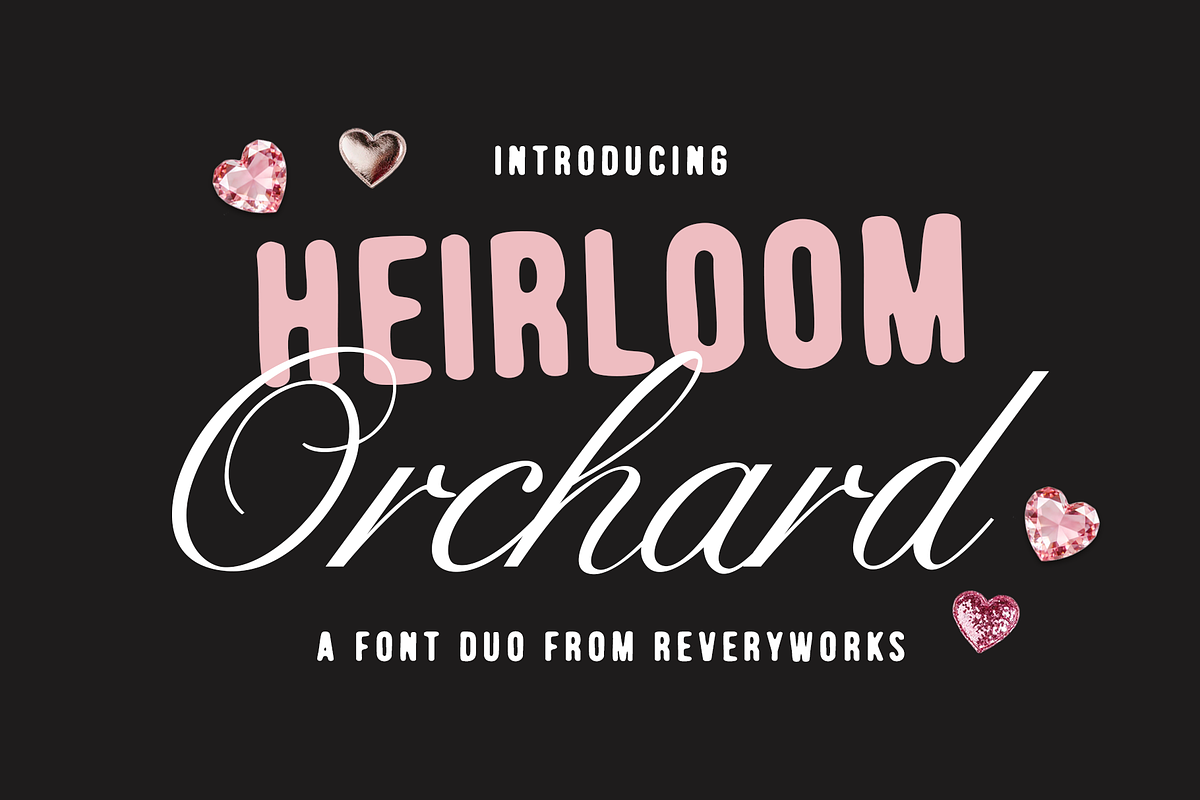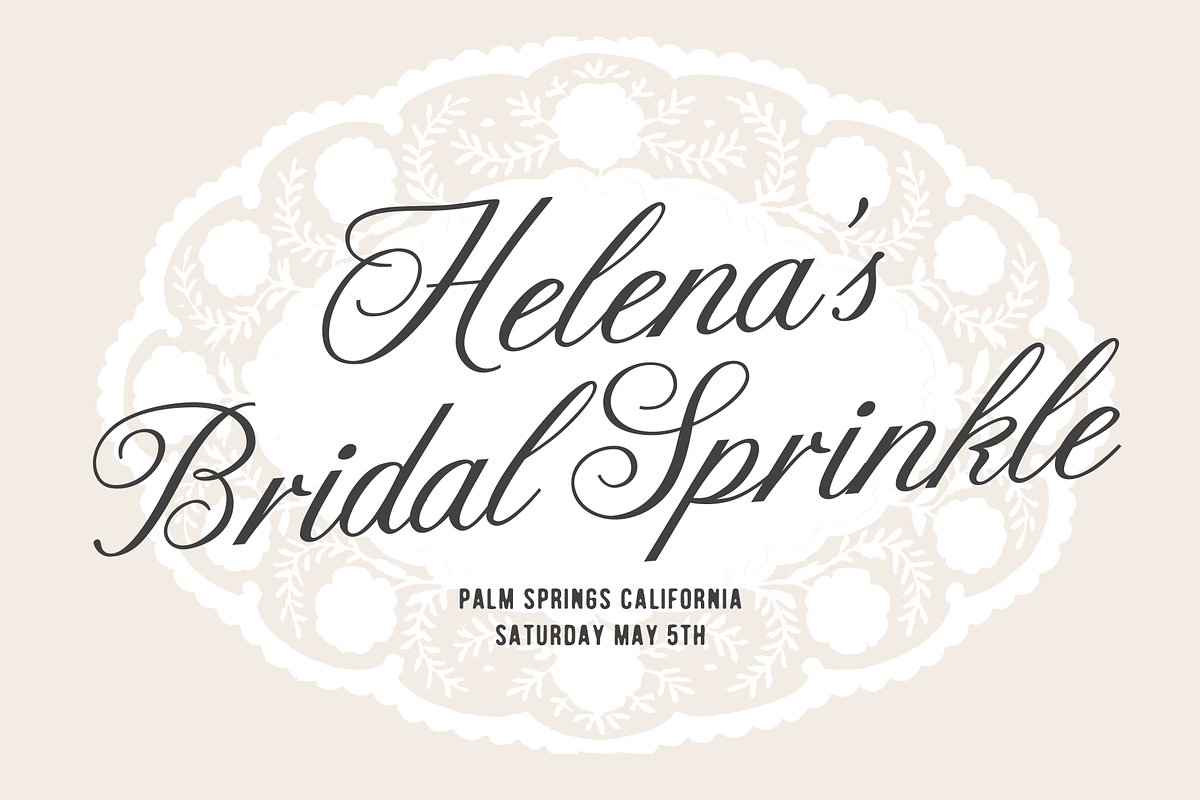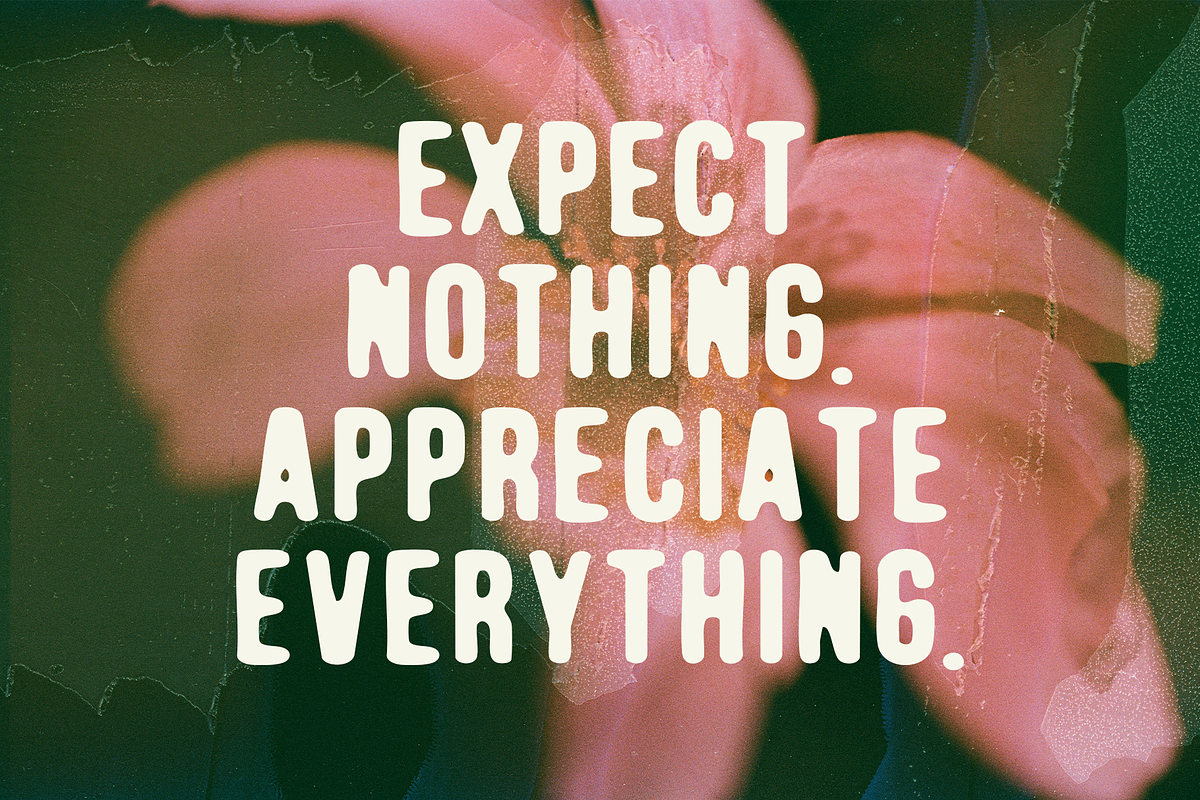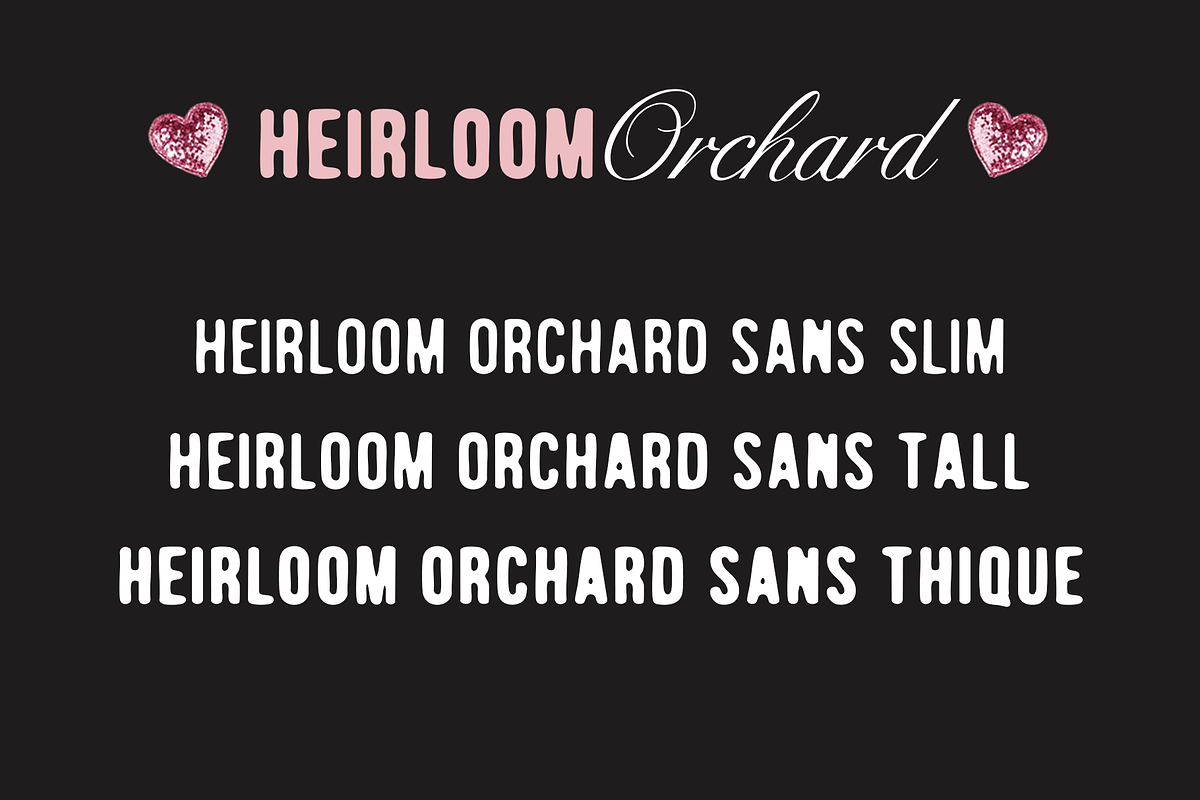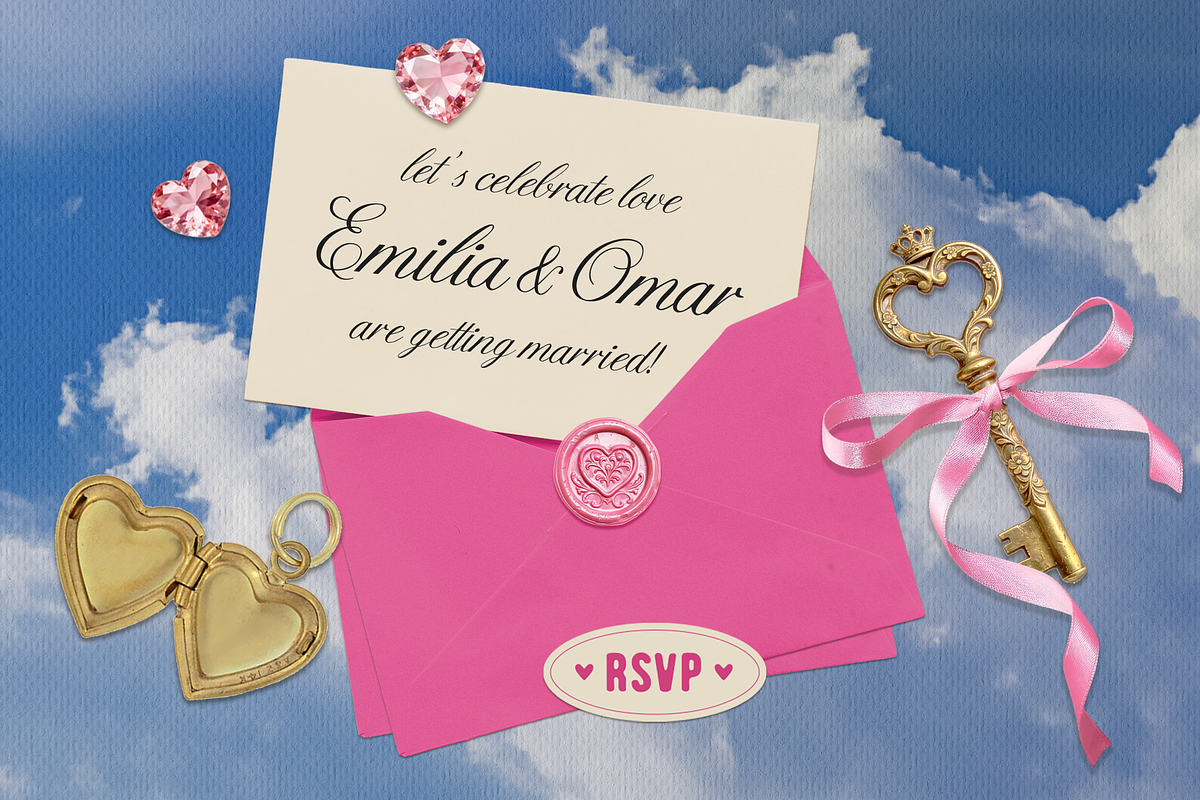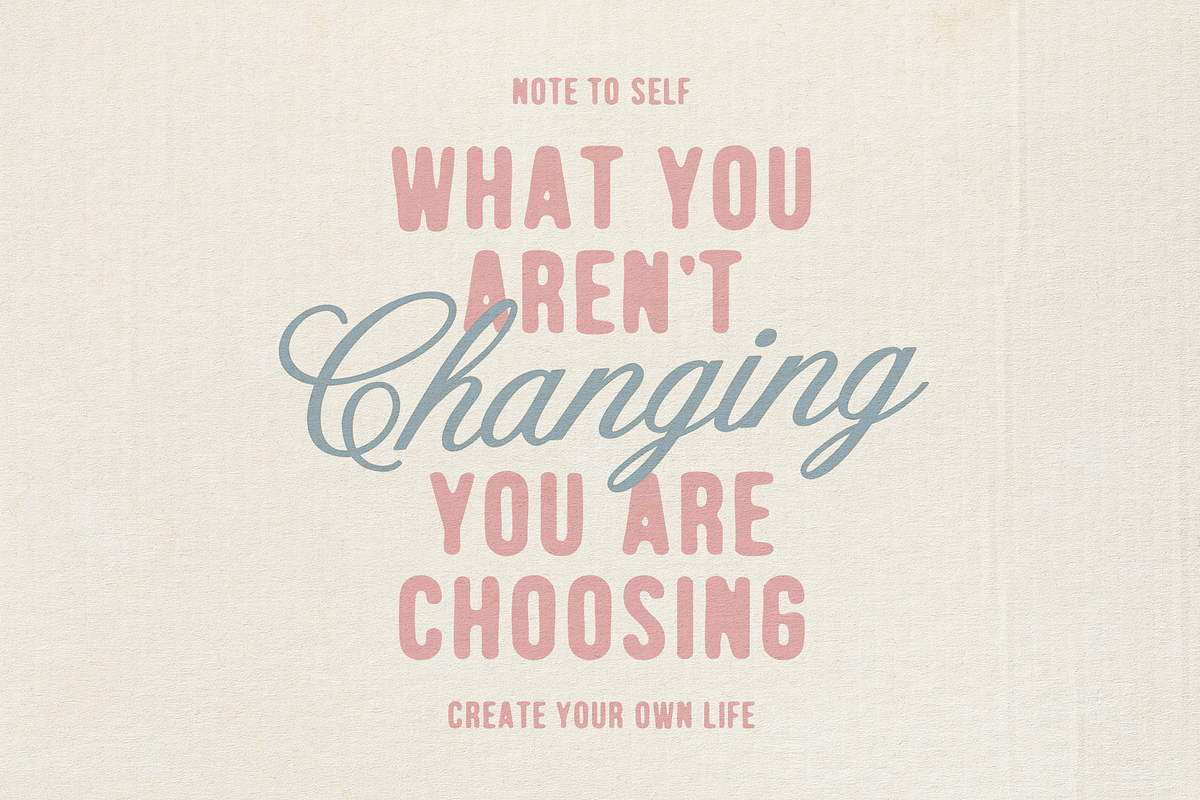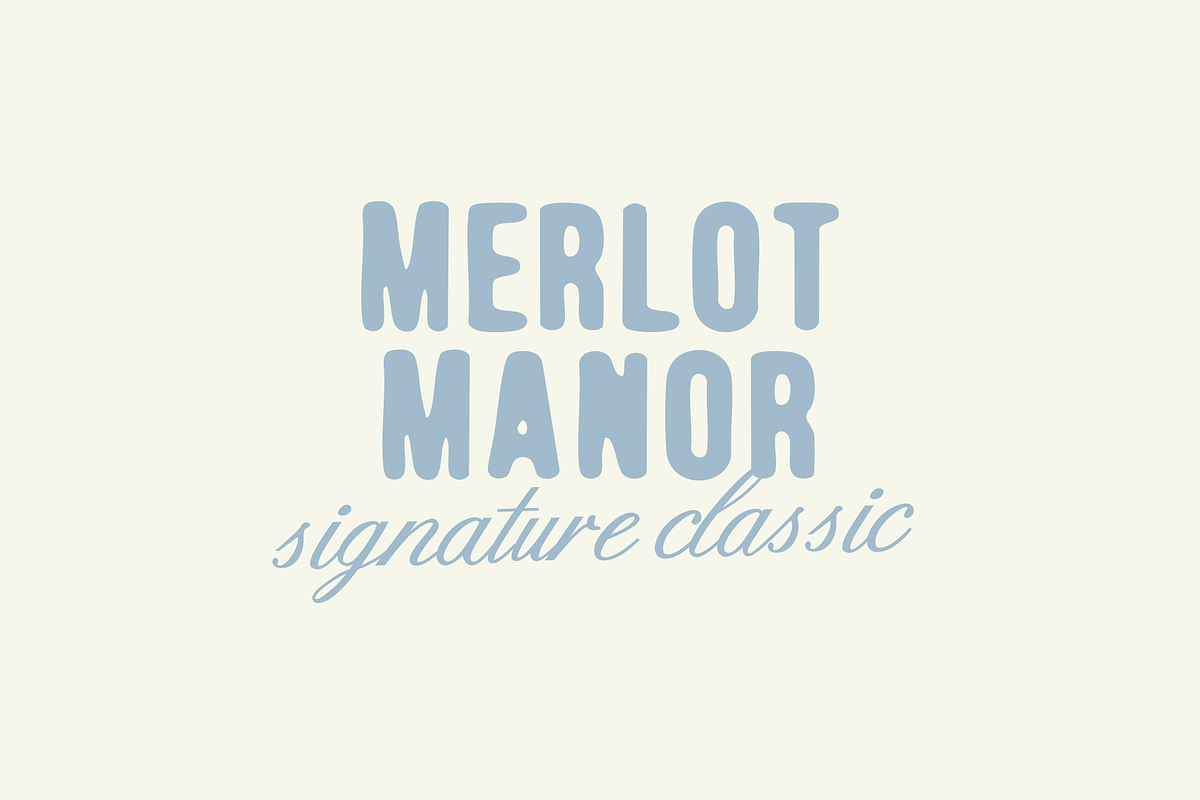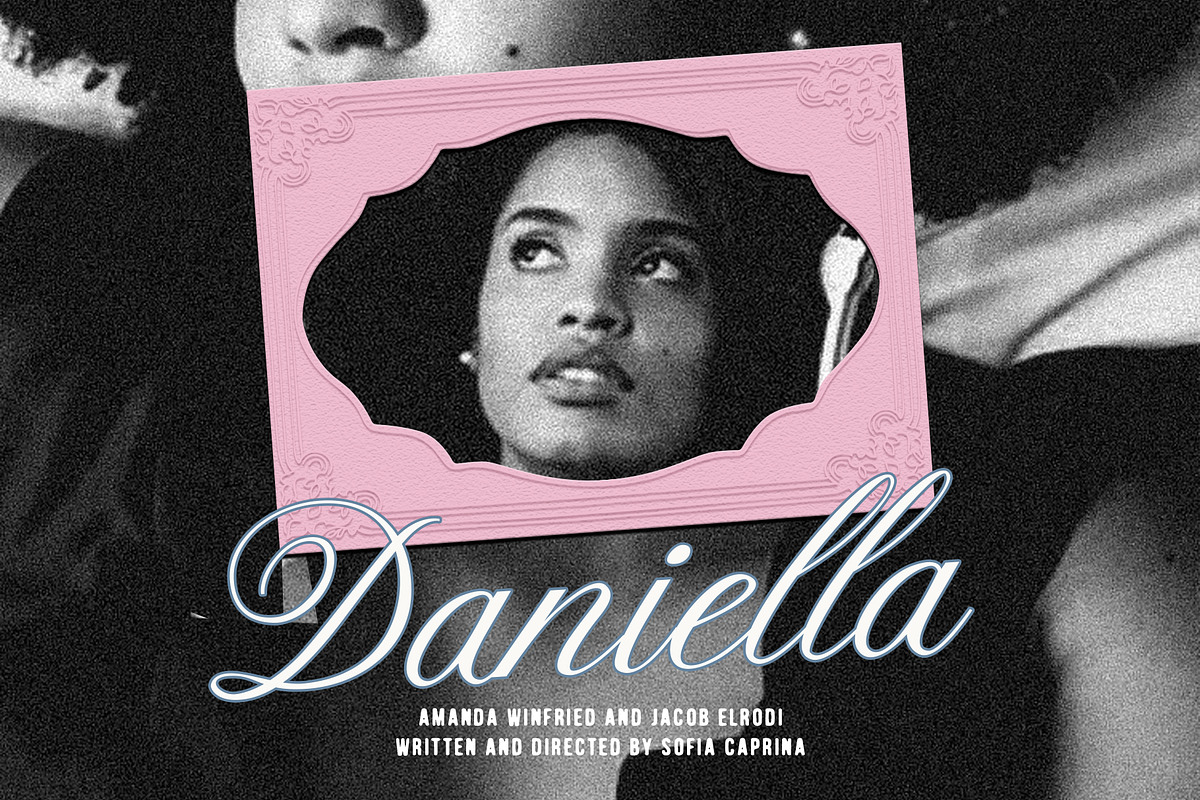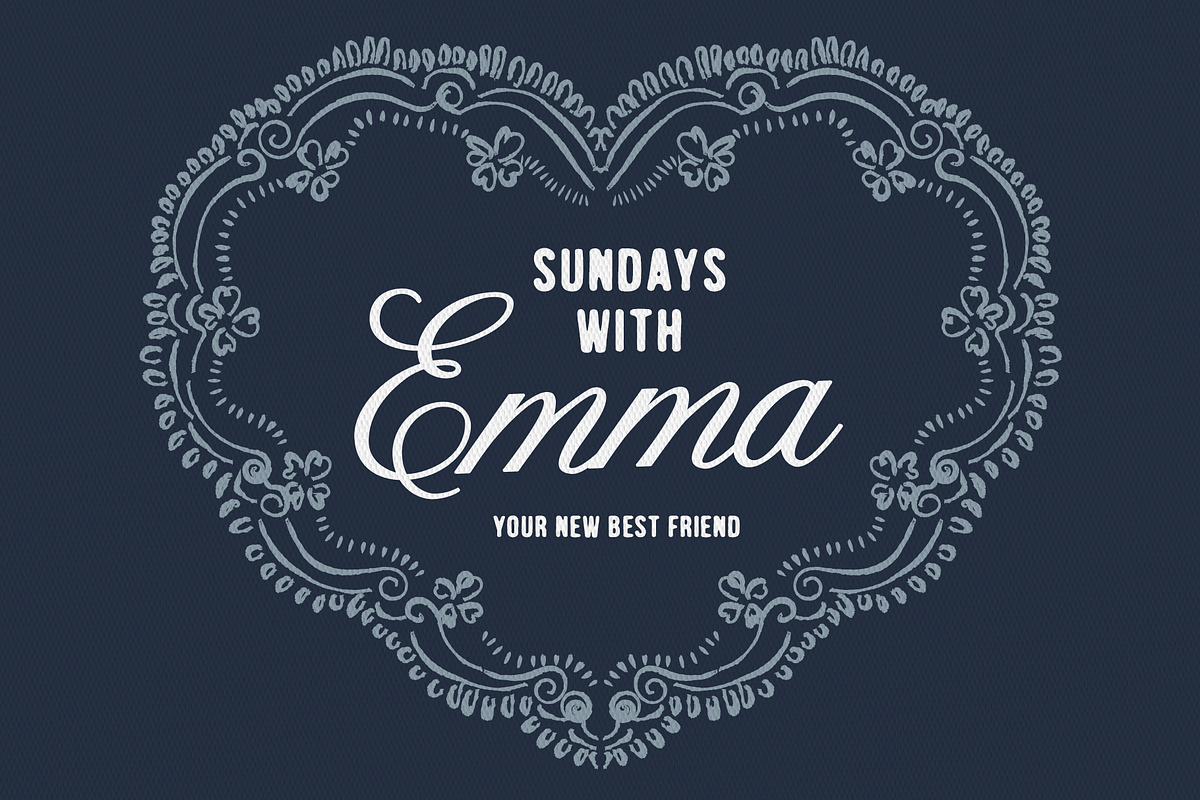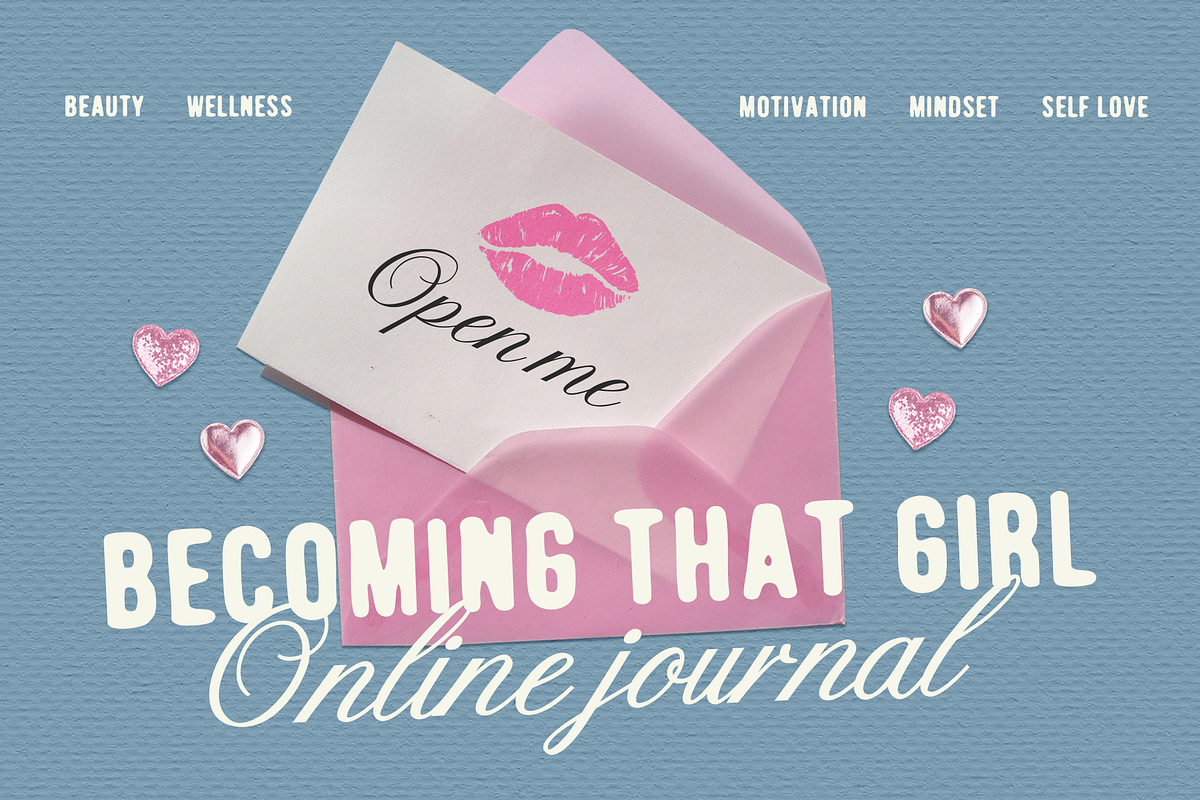
Heirloom Orchard Font Duo
Introducing Heirloom Orchard ! A feminine script and sans duo inspired by vintage lace and accessories. The script is loopy and twirly paired with a tall bleed font for a retro look. The script font is packed with ligatures for a smooth flowing script. Both the script and sans fonts come in 3 weights:
- Heirloom Orchard Script Slim
- Heirloom Orchard Script Hourglass
- Heirloom Orchard Script Thique
- Heirloom Orchard Sans Slim
- Heirloom Orchard Sans Tall
- Heirloom Orchard Sans Thique
Multi-lingual support included: áâàäåãæçéêèëíîìïıñóôòöõøœšßúûùüýÿžÁÂÀÄÅÃÆÇÉÊÈËÍÎÌÏÑÓÔÒÖÕØŒŠÚÛÙÜÝŸŽ